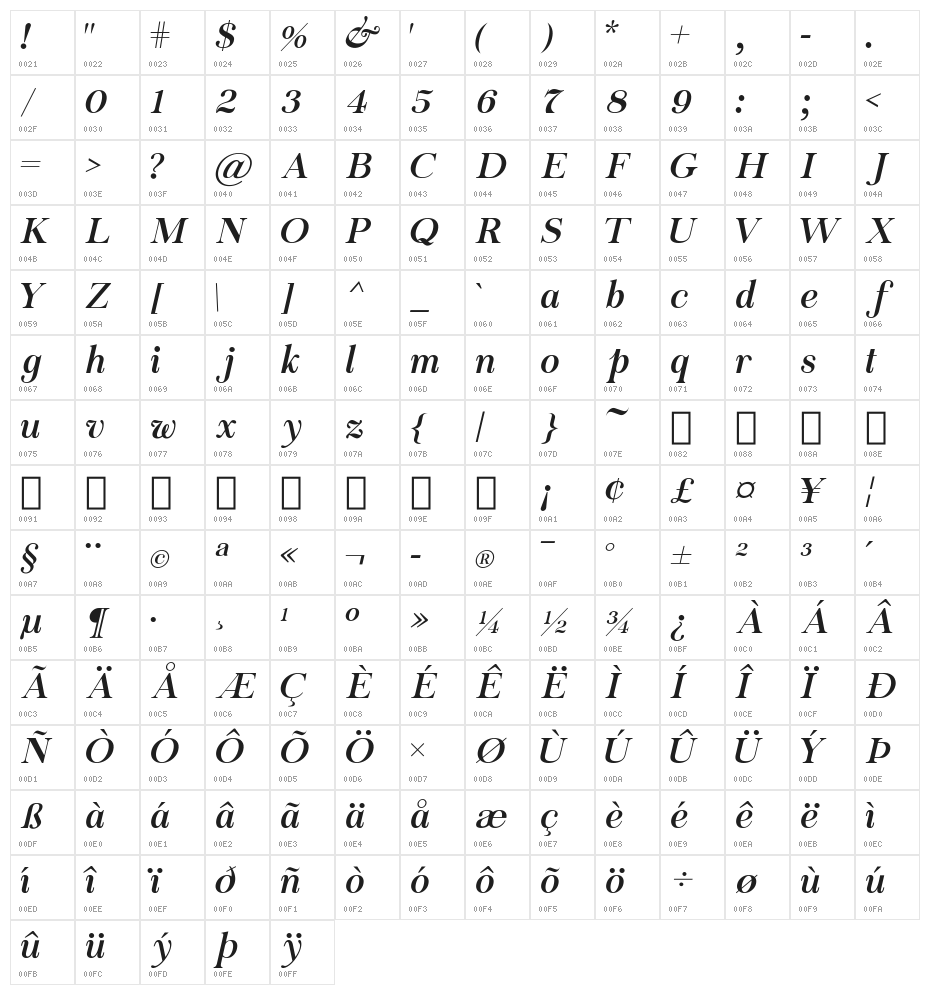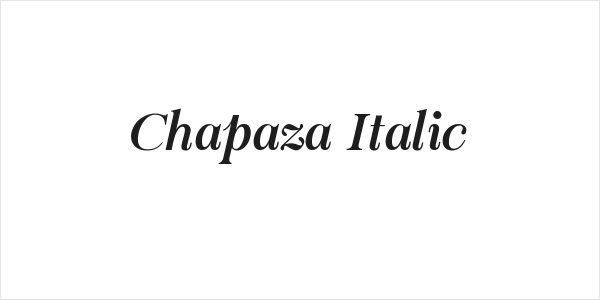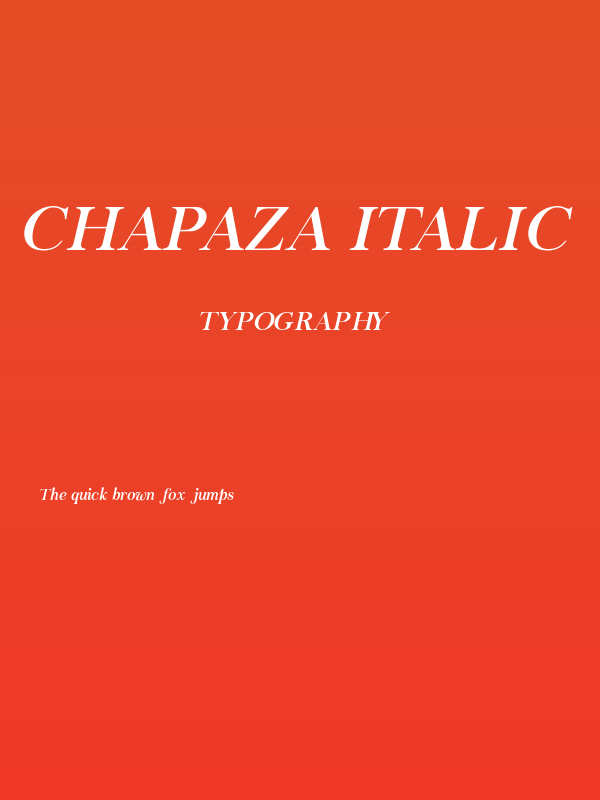
Chapaza Italic Font
Chapaza Italic Description
This elegant typeface features a classic italic style with smooth, flowing curves and a refined appearance. The uppercase letters are slightly elongated, adding a touch of sophistication, while the lowercase letters maintain a consistent slant, enhancing readability. The numerals are well-proportioned, and the special characters are crafted with attention to detail, making them suitable for a variety of uses. The font's overall design is both timeless and versatile, allowing it to be used in both formal and creative contexts. Its balanced contrast in stroke thickness provides a harmonious visual appeal.
| Use Case | Headlines, Logos, Editorial design |
| Proposed Projects | Ideal for wedding invitations, elegant branding, editorial design, and luxury product packaging. |